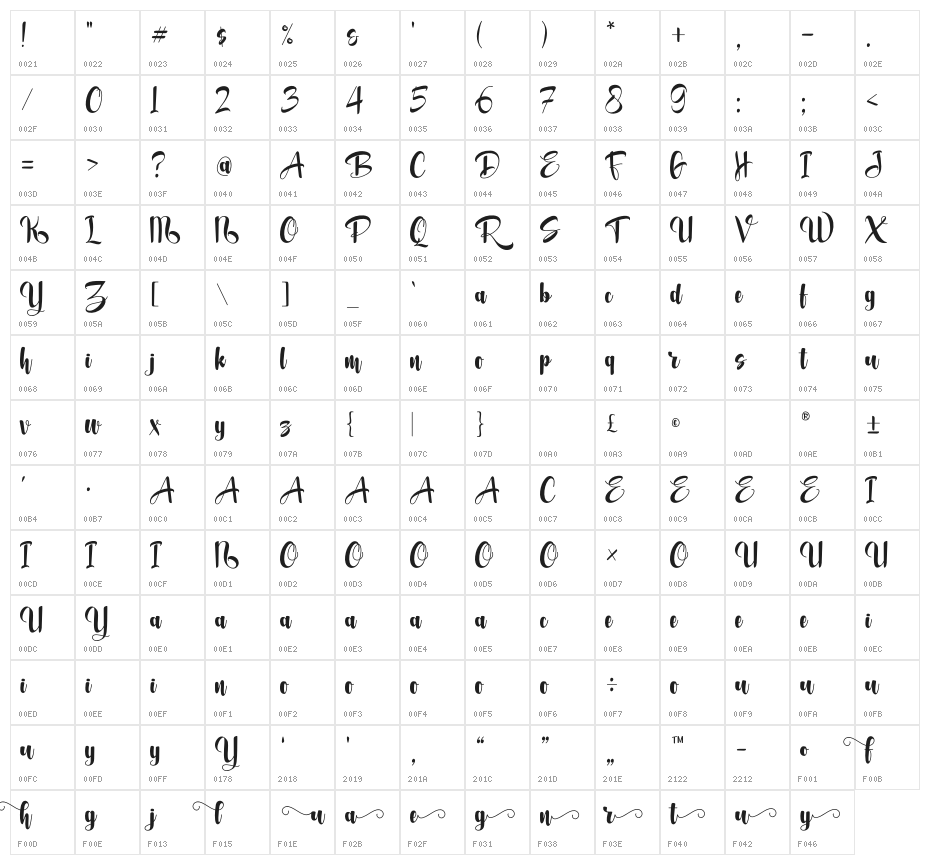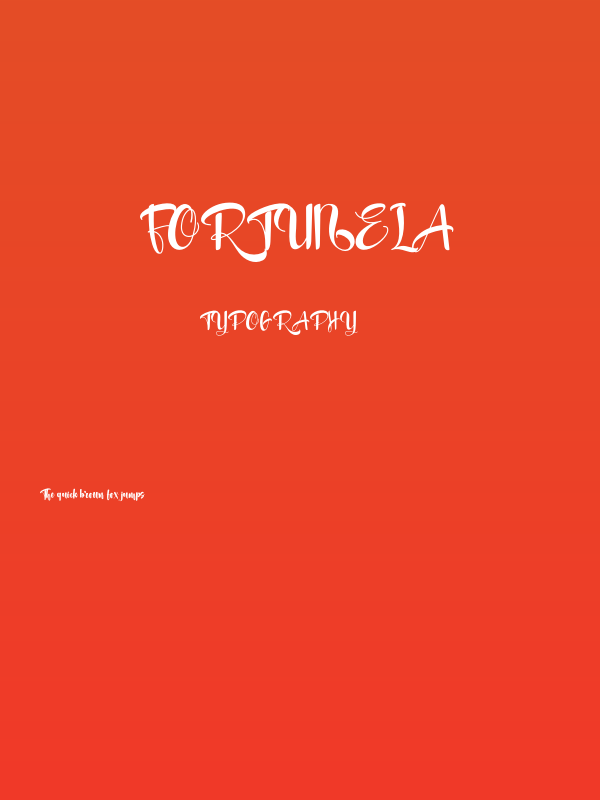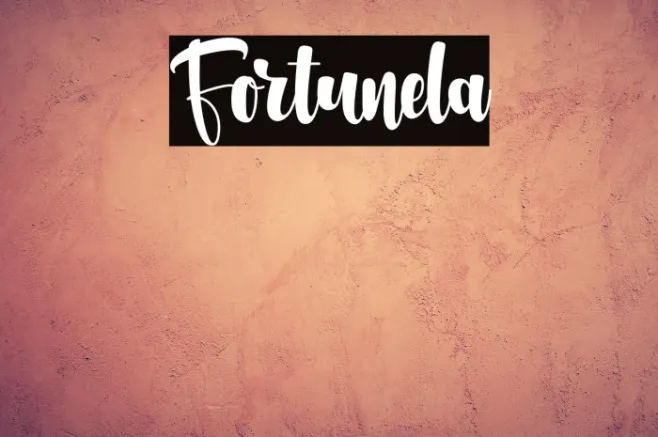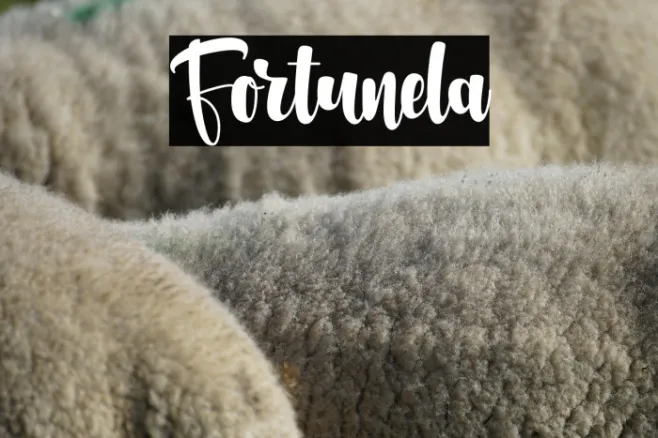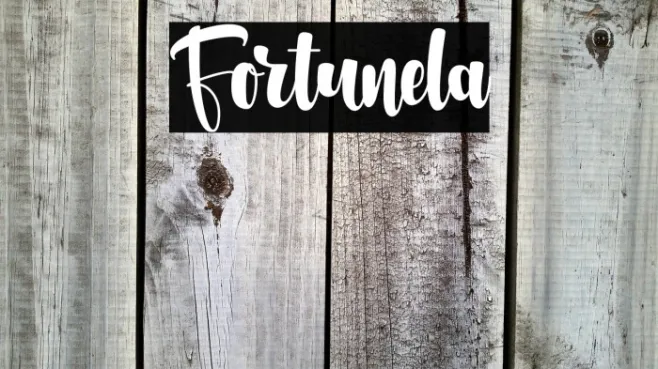
Fortunela Font
Fortunela Description
This font features an elegant and flowing script style, characterized by its smooth, cursive letterforms that exude a sense of sophistication and charm. The uppercase letters are particularly ornate, with intricate loops and swirls that add a decorative flair. The lowercase letters maintain a consistent flow, with some characters featuring unique flourishes that enhance their visual appeal. The numerals are designed with a similar aesthetic, ensuring a cohesive look across all characters. This font's overall appearance is both stylish and versatile, making it suitable for a variety of design applications.
| Proposed Projects | Ideal for wedding invitations, elegant branding, greeting cards, and decorative signage. |